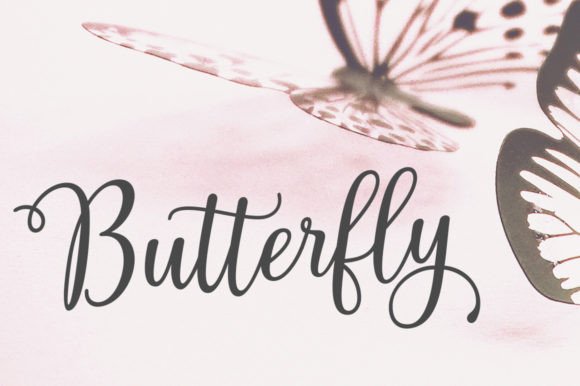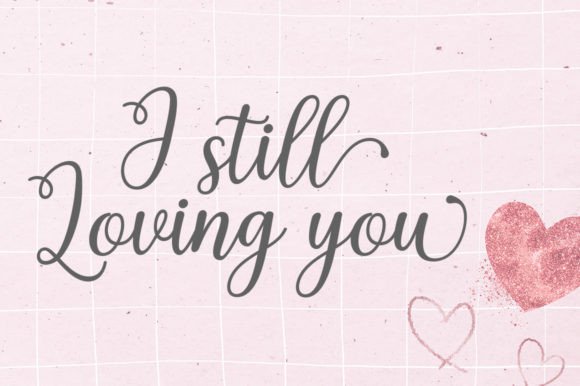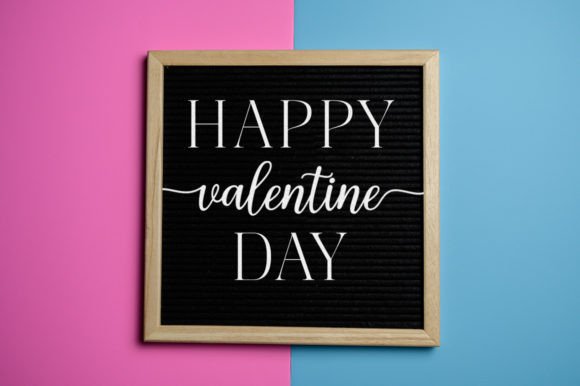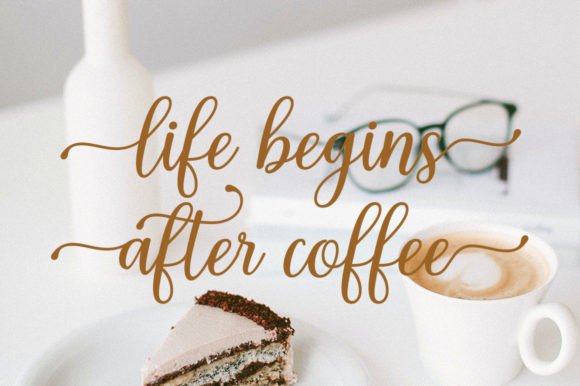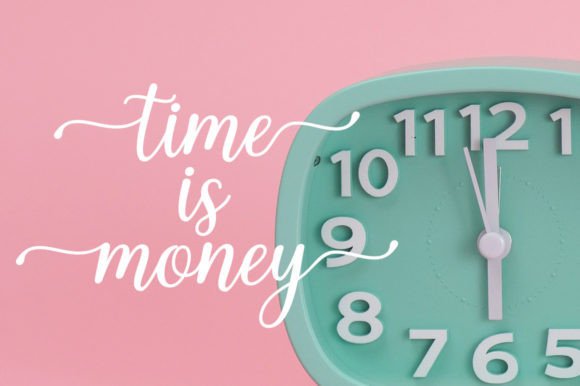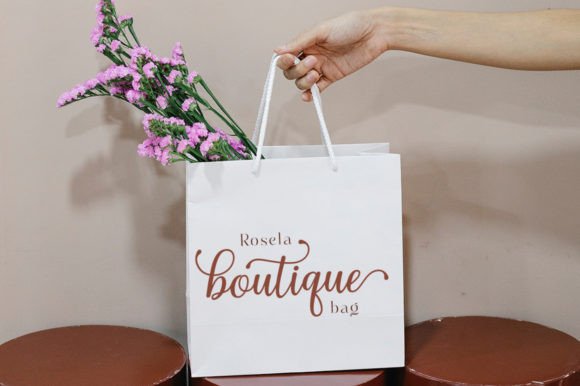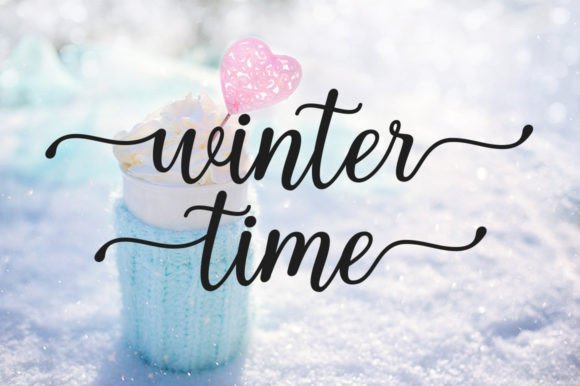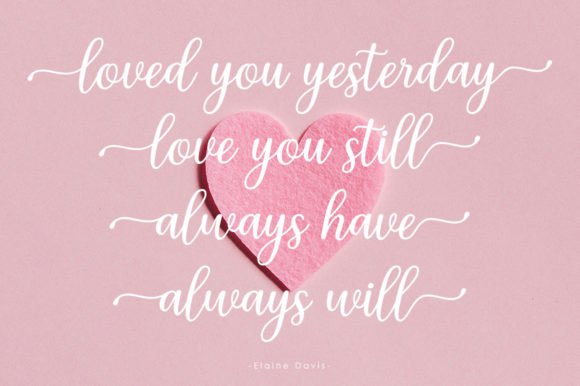
Mishega Font
About Mishega Font
Mishega Script is a modern calligraphy font that includes a Regular style. This font is characterized by its casual and pretty aesthetic, featuring swashes that add a touch of elegance. With its versatile design, Mishega Script can be used for various purposes, making it a valuable asset for a wide range of design projects.
The casual and pretty nature of Mishega Script makes it suitable for diverse applications. Whether you’re working on a logo, product packaging, wedding invitations, branding, headlines, signage, labels, signature, book covers, posters, quotes, or any other creative endeavor, this font adapts effortlessly, adding a stylish and sophisticated touch.
The inclusion of swashes in Mishega Script enhances its versatility and provides creative opportunities for customization. The font’s modern calligraphy style ensures that it can be applied to both formal and creative contexts, making it a go-to choice for various design requirements.
Incorporating Mishega Script into your projects is an invitation to elevate them with a touch of modern calligraphy. This font becomes a versatile tool, ready to enhance the visual impact of your designs and add a sense of elegance and style to your creative expressions.
In summary, Mishega Script is more than just a font; it’s a modern calligraphy design asset that brings sophistication to your projects. With its casual and pretty style, along with swashes for added flair, Mishega Script stands ready to be the perfect companion for a variety of creative endeavors, making your designs stylish, elegant, and uniquely crafted.